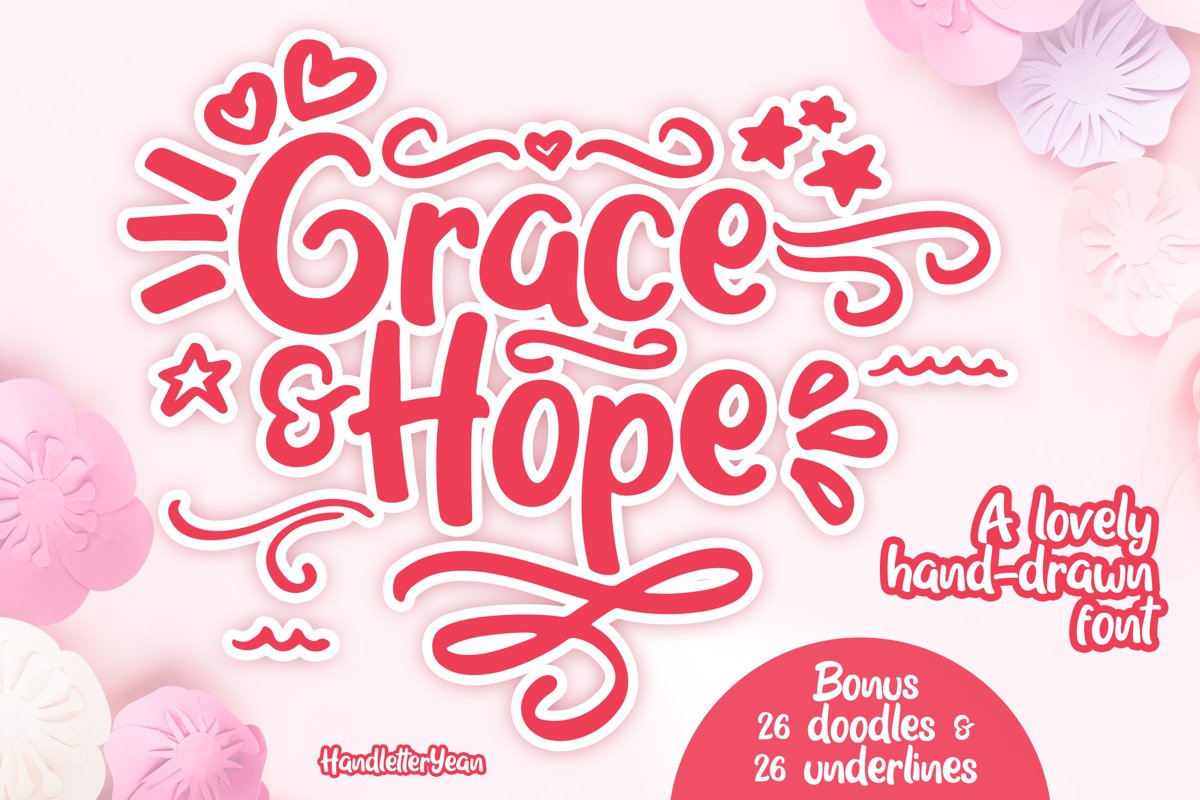
Grace & Hope
Grace & Hope is a beautiful display font with various doodles and underlines. It's cute and lovely look will make your design eye-catching and stand out.
2. These font styles are regular, italic, bold, bold italic
6. Support multilingual; ä ö ü Ä Ö Ü ß ¿ ¡